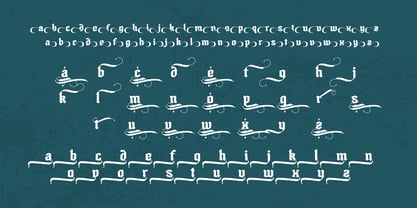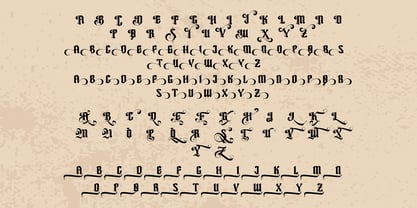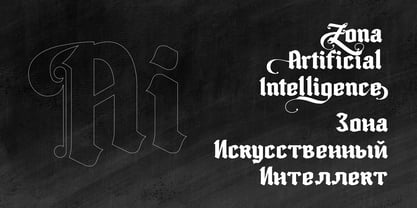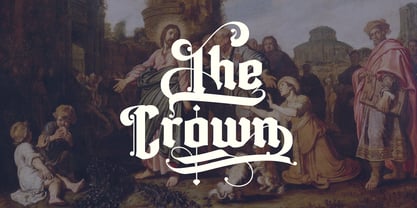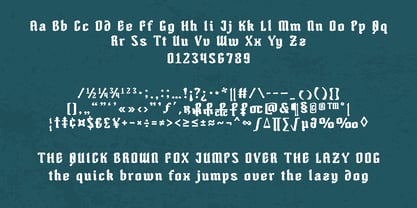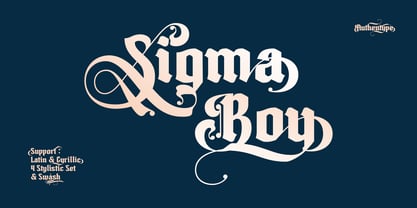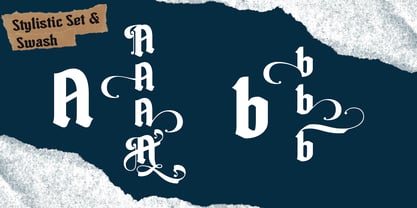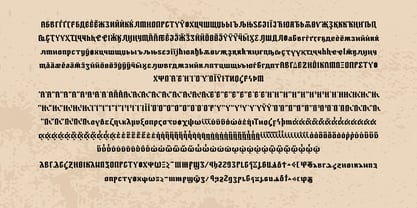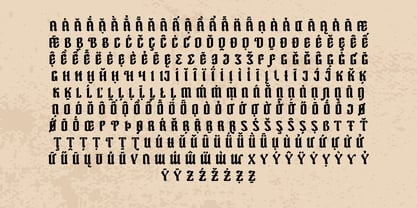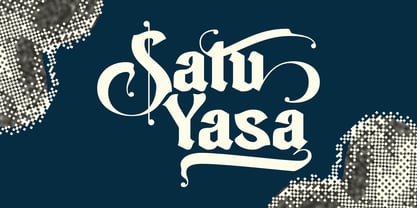
Sigma Boy
The Sigma Boy Font Family was designed by Ekayasa and published by Authentype. Sigma Boy contains 1 styles. More about this family
Sigma Boy – elegant blackletter font is a stylish and versatile blackletter font with strong character details and a modern touch. Designed for elegance and flexibility, this font supports multiple languages and offers four stylistic sets along with beautifully crafted swashes. Whether for branding, headlines, or creative designs, Sigma Boy adapts effortlessly to your needs, giving your projects a bold yet refined look.